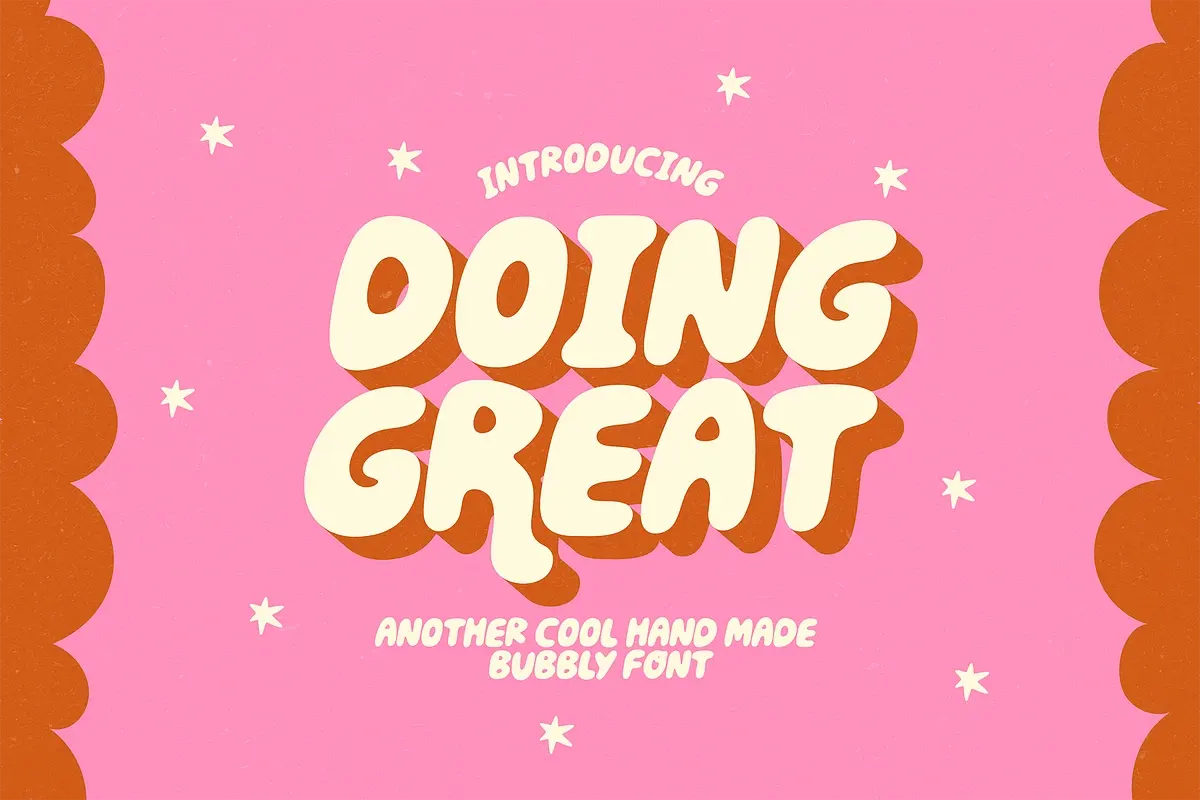
DOING GREAT | Cool Bubble Font Free Download is a playful, bold, and fun typeface with round, bubbly letterforms that are full of personality. Ideal for children's designs, party posters, social media graphics, and creative branding, this font adds a cheerful and eye-catching touch to any project.
DOING GREAT | Cool Bubble Font Free Download brings an energetic, youthful vibe to your typography, making it perfect for events, advertisements, or anything that needs to capture attention with a fun, casual flair. Download it today and let your designs pop with the bubbly charm of DOING GREAT!